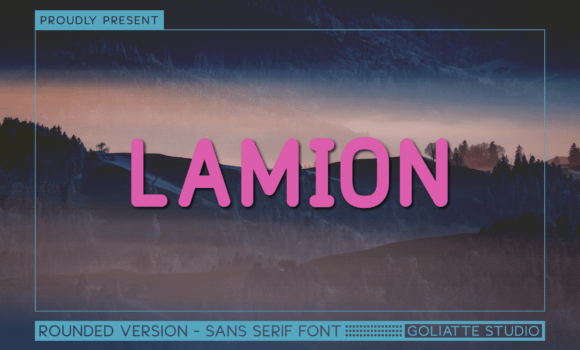
lamion
Lamion Font – Free Download Introduction to Lamion Font Meet Lamion, a whimsical and charming all caps font that boasts the complete A-Z capital letter scheme, a numerical range of 0-9, a variety of accented characters, and elements of punctuation.